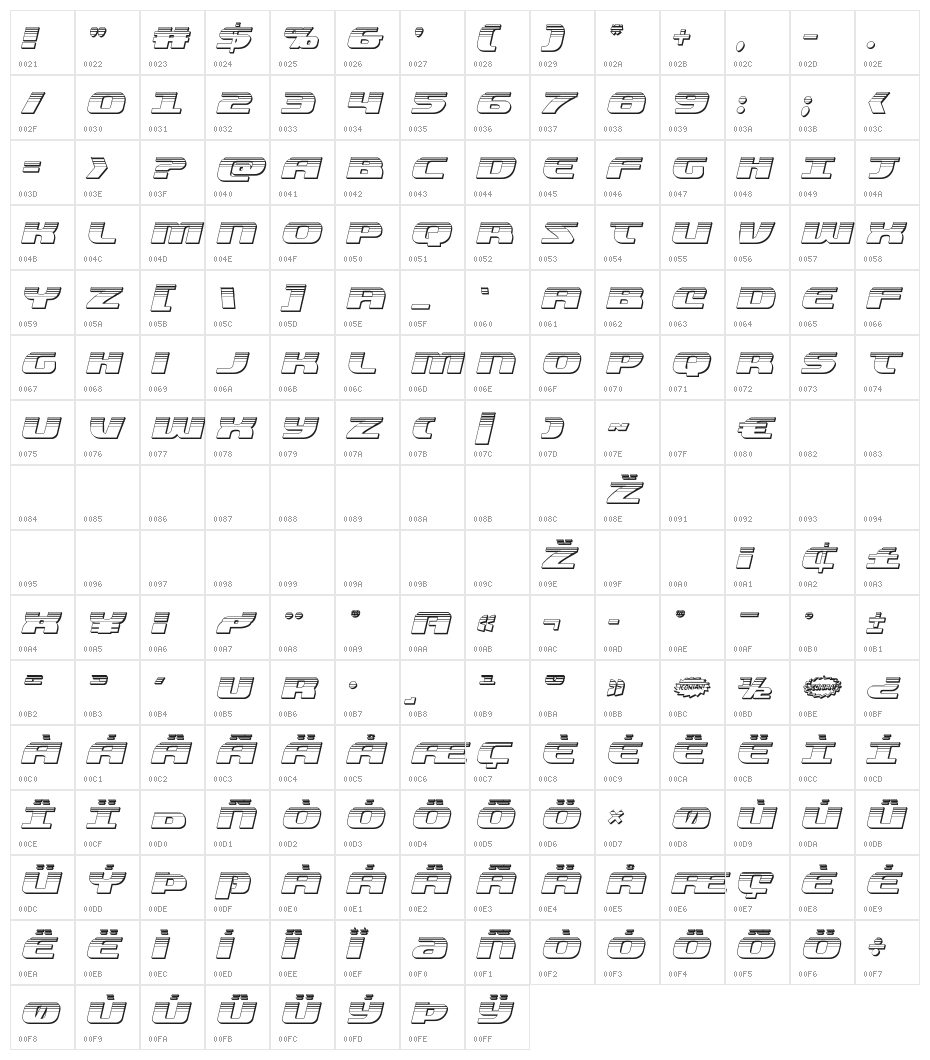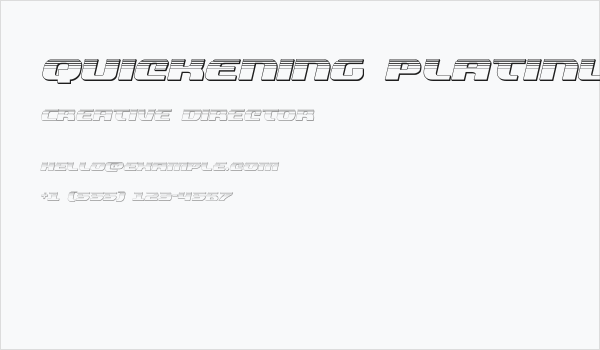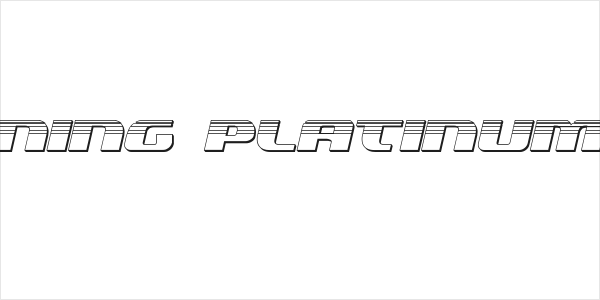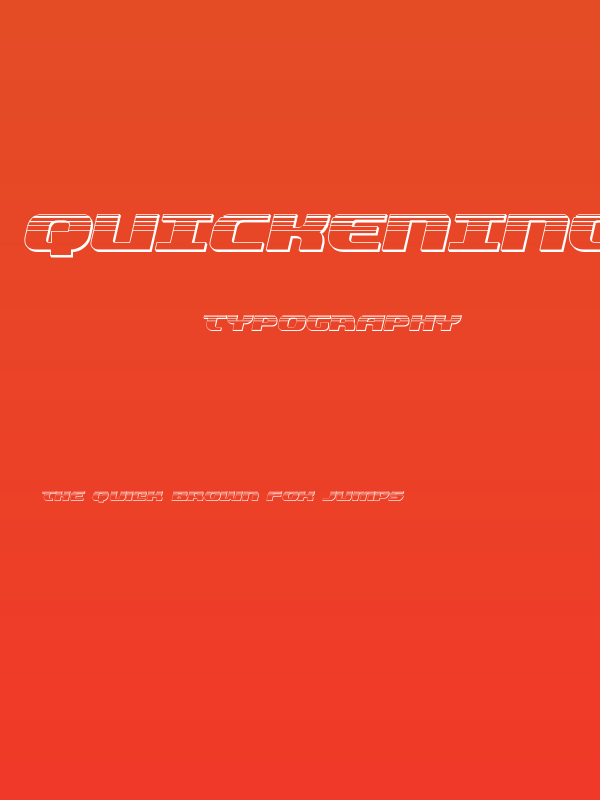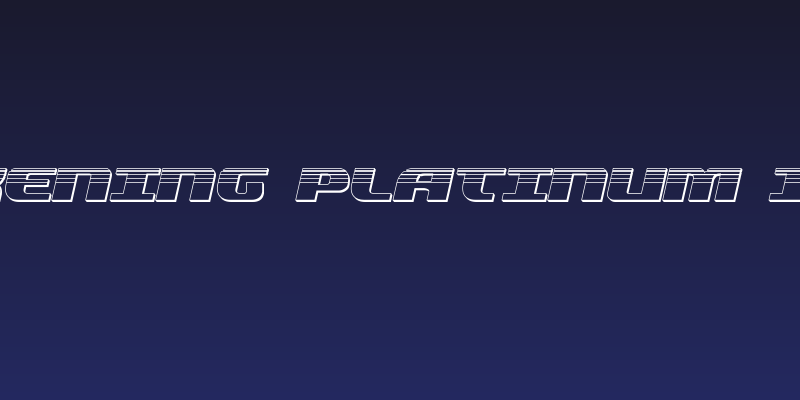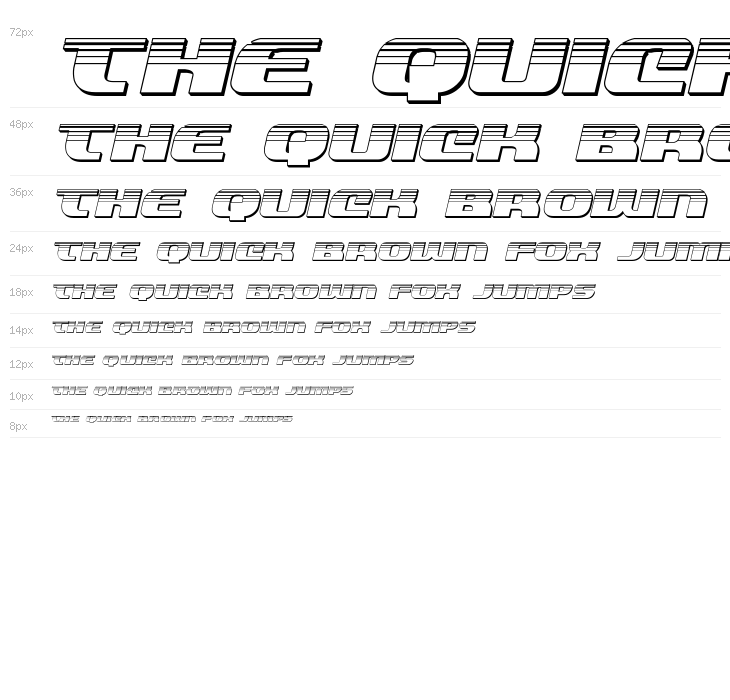
Quickening Platinum Italic Font
Quickening Platinum Italic Description
This font features a futuristic and dynamic design with a distinct three-dimensional effect created by multiple parallel lines. The characters are bold and wide, giving a sense of movement and speed. The uppercase and lowercase letters maintain a consistent style, enhancing readability while adding a unique flair. The numbers and special characters are equally stylized, making them suitable for attention-grabbing designs. The overall appearance is sleek and modern, ideal for projects that require a cutting-edge look.
| Proposed Projects | Ideal for sci-fi themed designs, video game titles, tech branding, and modern advertising campaigns. |